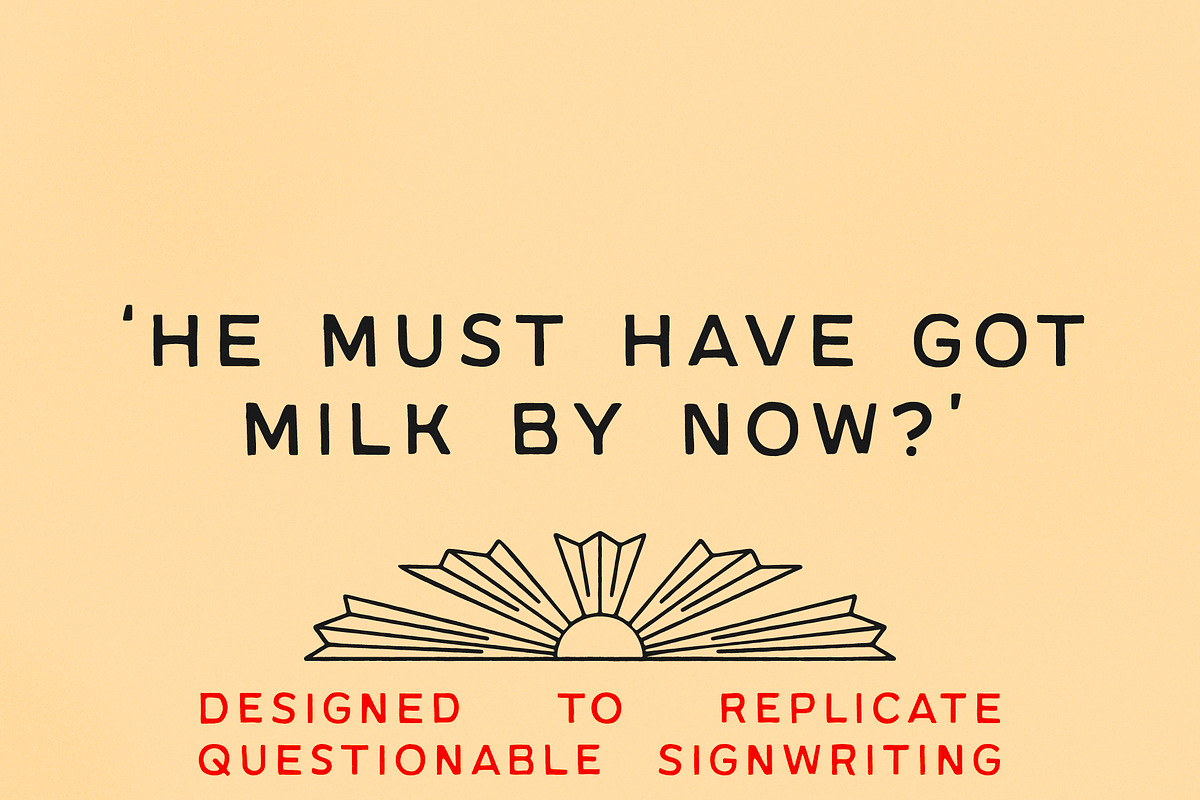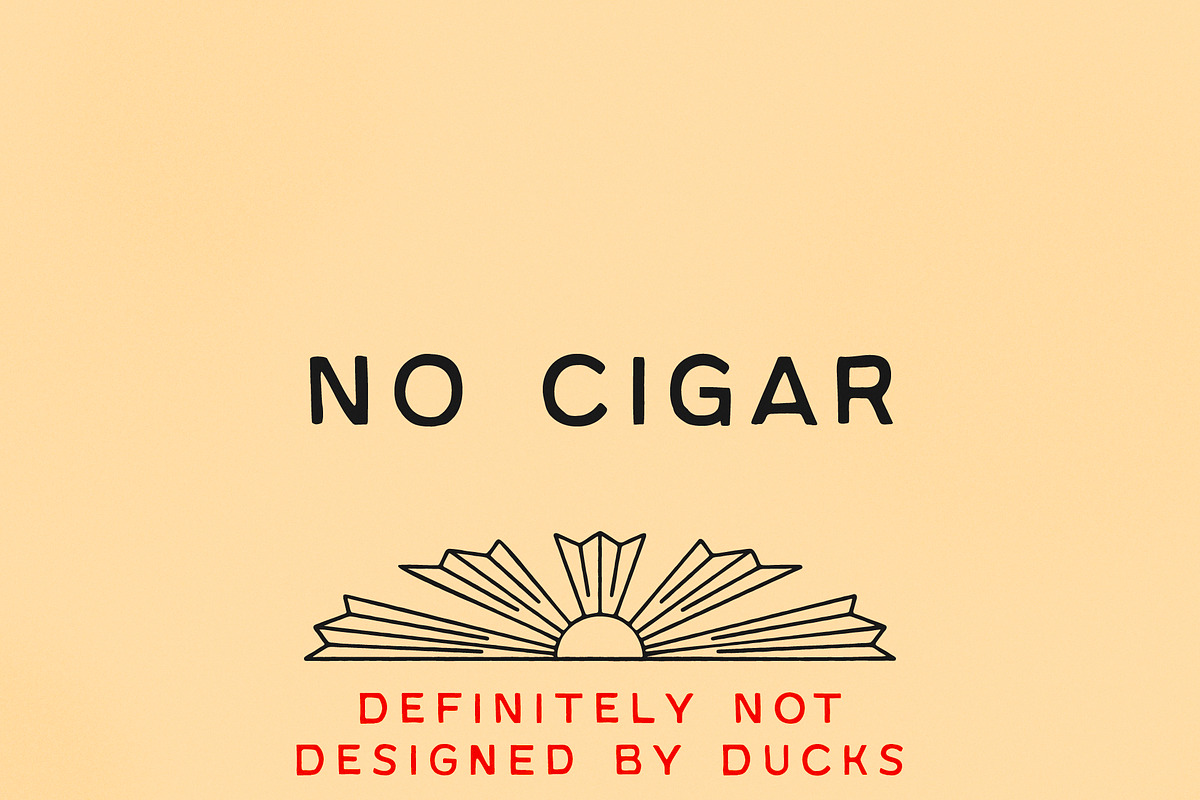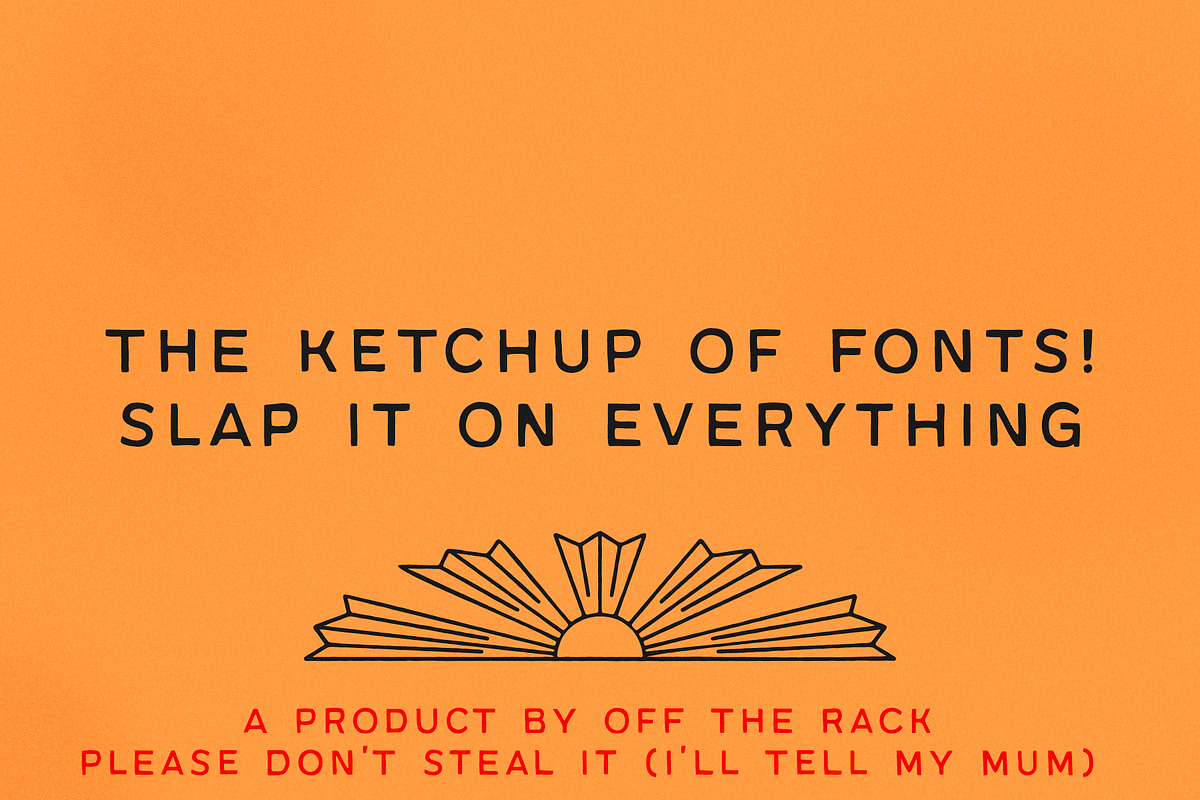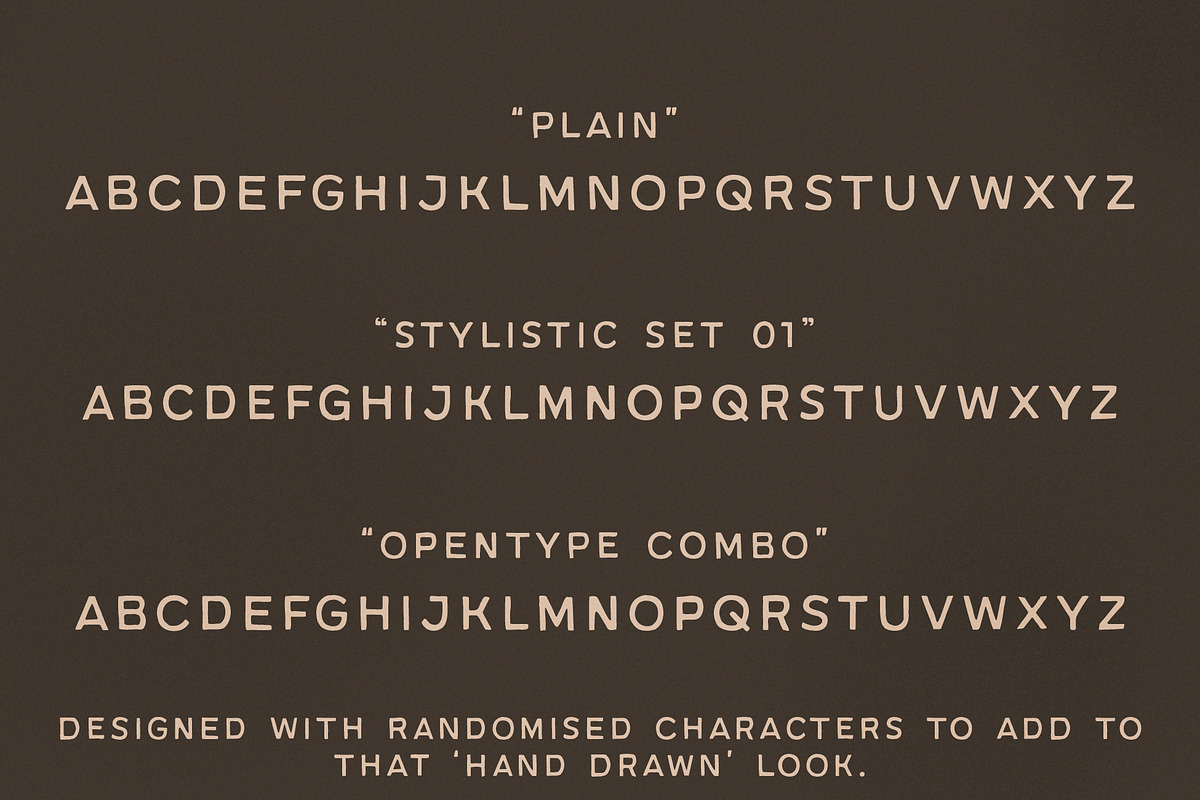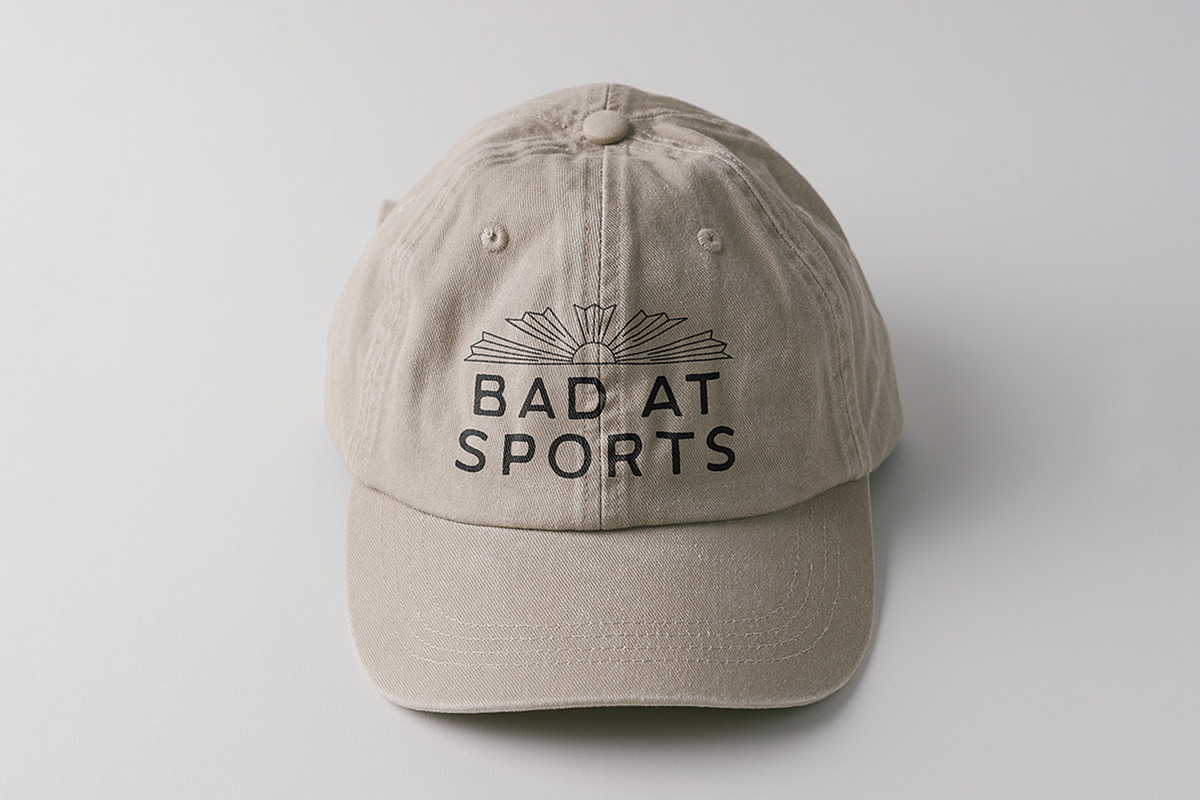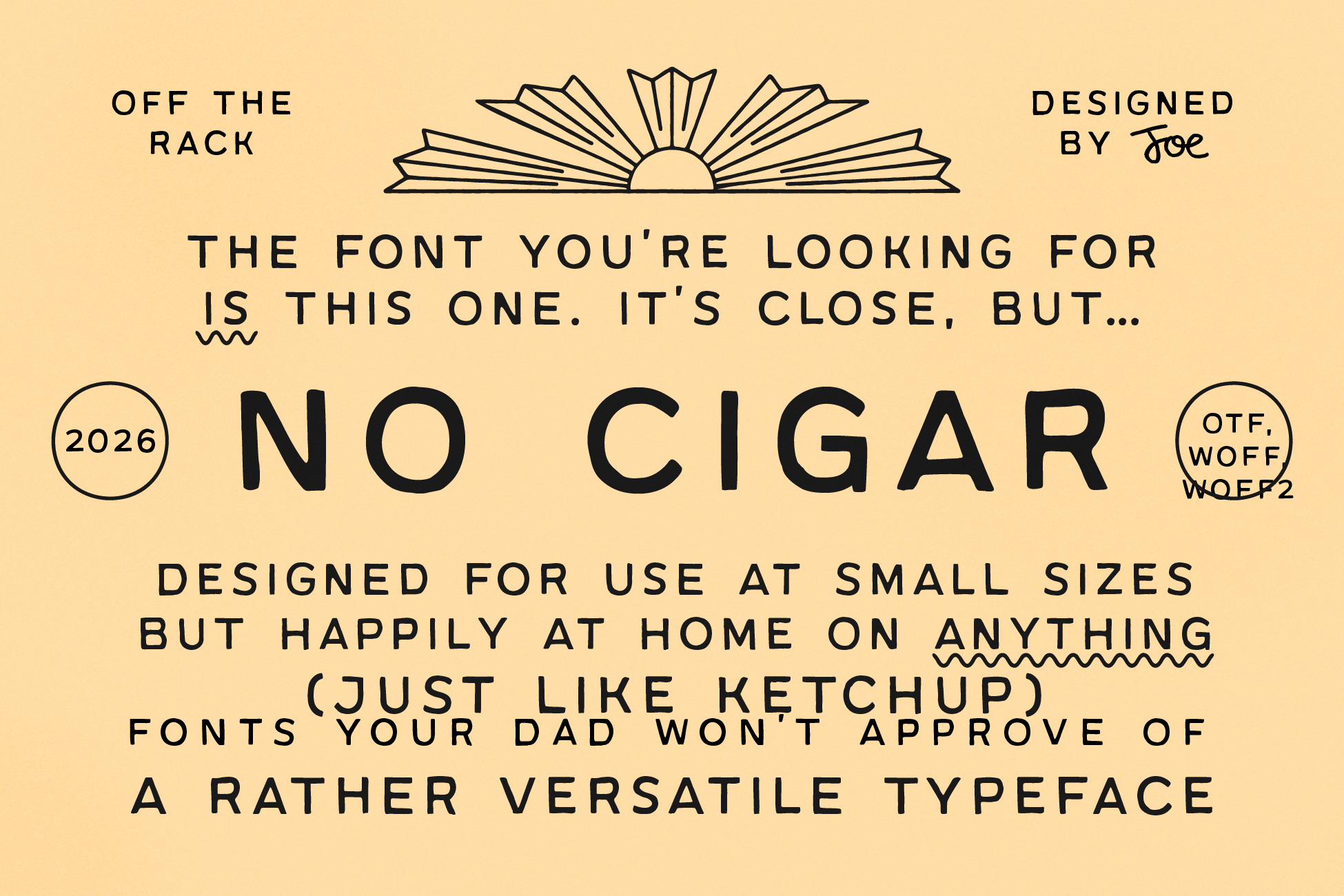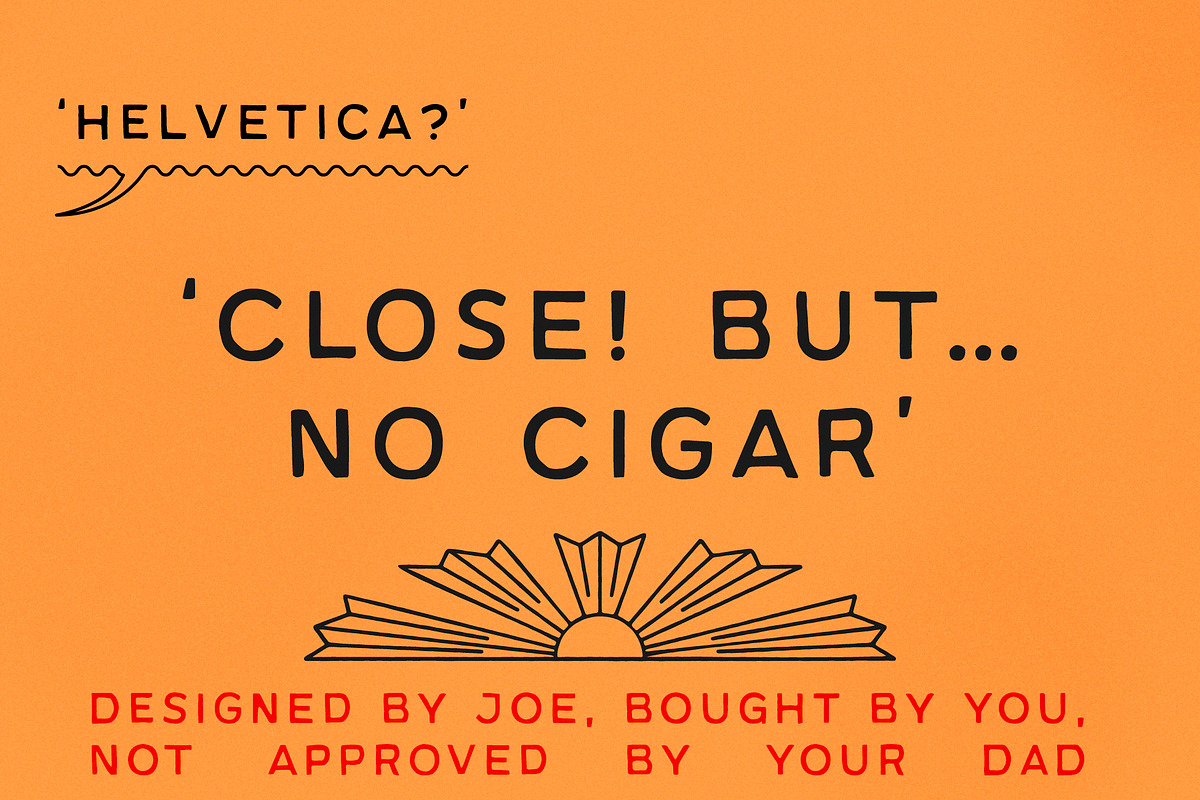
No Cigar Handdrawn Font
The table's set. Grandma's best china's been laid out, and guests are slowly pouring through the door. But something's missing... it's all close, but...
No Cigar. The latest typeface by Off The Rack.
It's the Ketchup of fonts. The one thing missing from an elegant house party. The thing you slap on everything.
Designed on paper, in pen, before being chopped up and rearranged in Glyphs, No Cigar has bumps in all the right places. Refined, elegant, with just a hint of a wild side, No Cigar is exactly what you need to spice up an otherwise lovely evening.
Use it with wild abandon.
Guaranteed not designed by ducks or AI.
Includes language support for over 80 languages.
Open Type feature includes a second stylistic set with 'randomising' contextual alts.\\\*